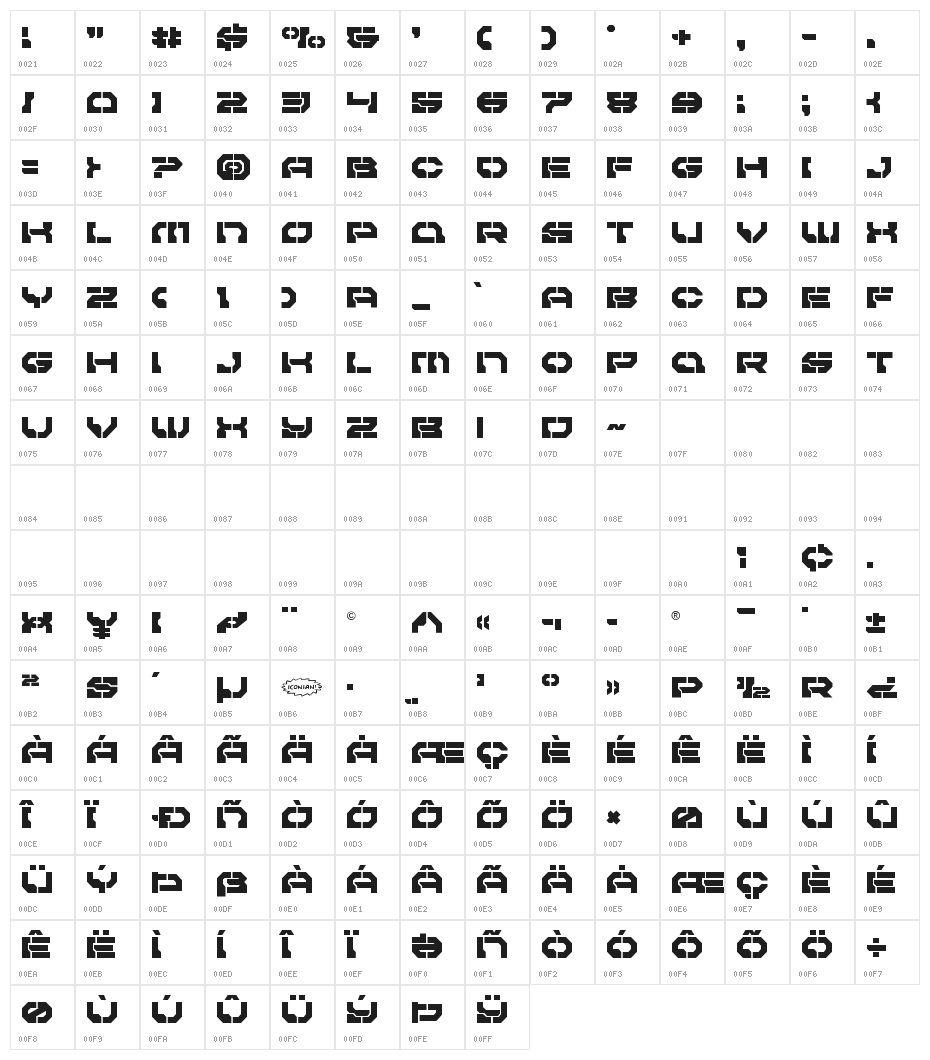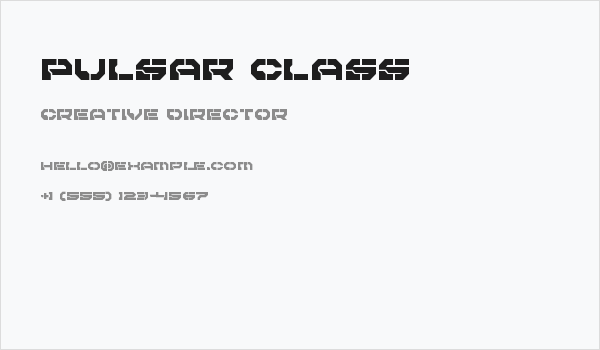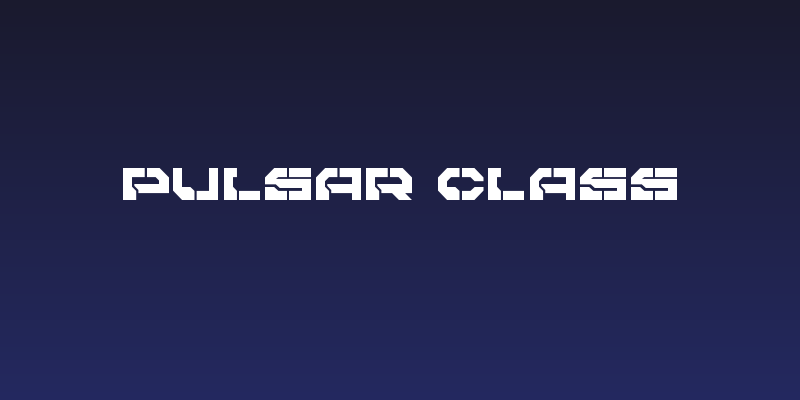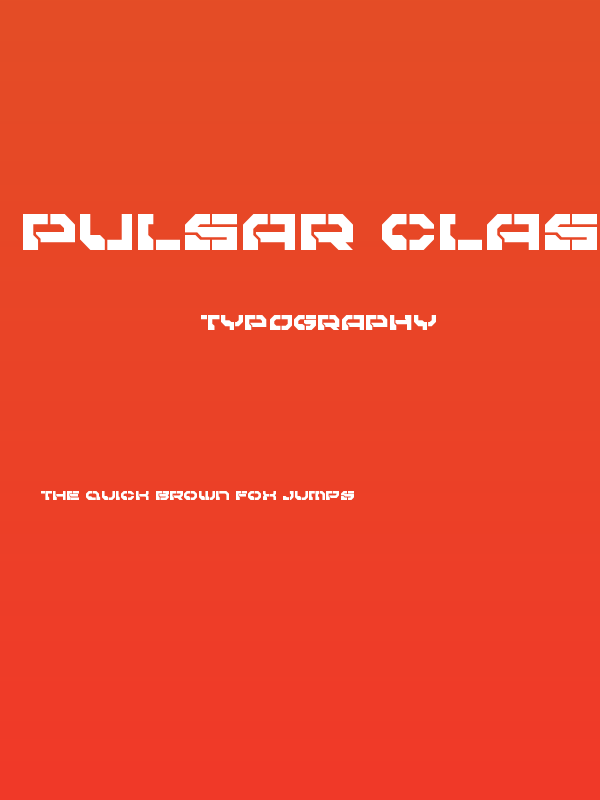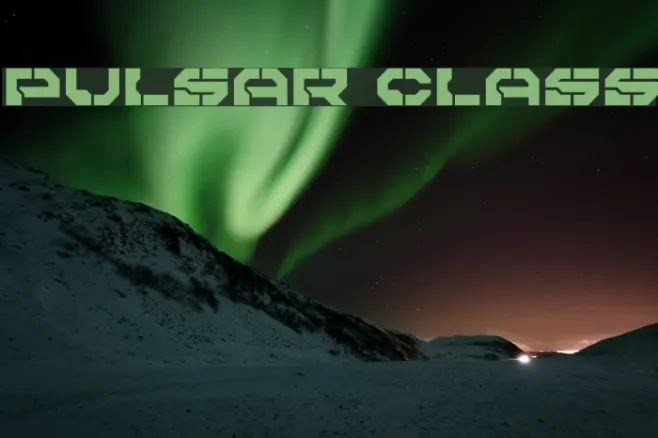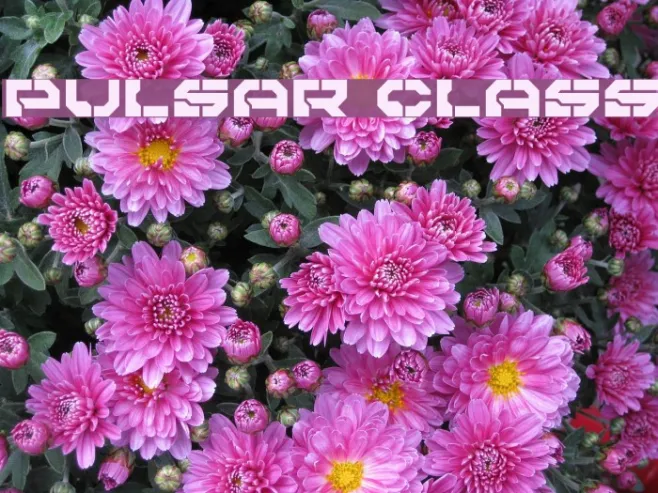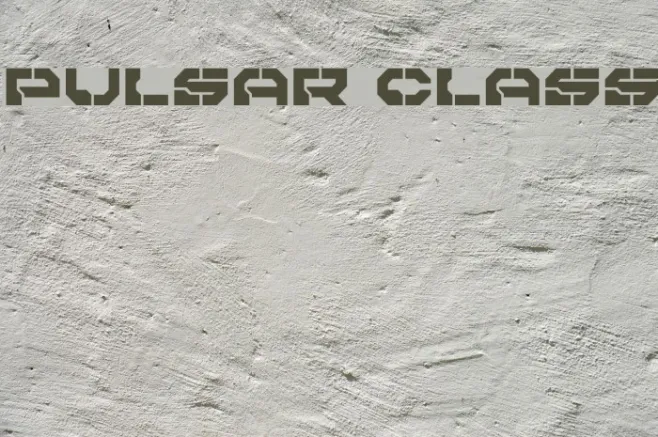
Pulsar Class Font
Pulsar Class Description
This font features a bold, futuristic design with geometric shapes and sharp angles. The characters are constructed with a stencil-like appearance, giving them a unique, industrial feel. The uppercase and lowercase letters maintain a consistent style, with each character exhibiting a distinct cut-out pattern that enhances its modern aesthetic. The numerals and special characters follow the same design principles, ensuring a cohesive look across all elements. This font's boldness and distinctiveness make it ideal for projects that require a strong visual impact.
| Proposed Projects | Ideal for sci-fi themed designs, technology branding, video game titles, and futuristic posters. |